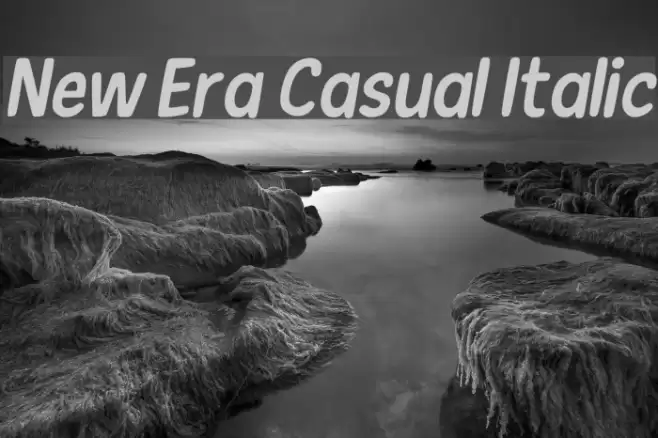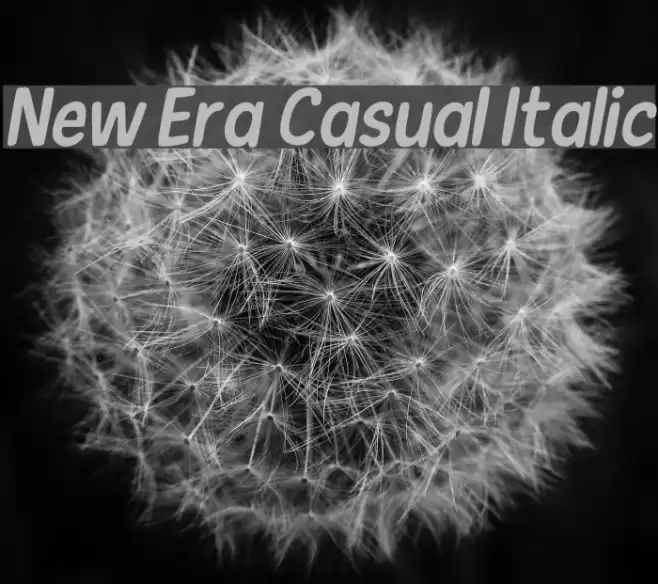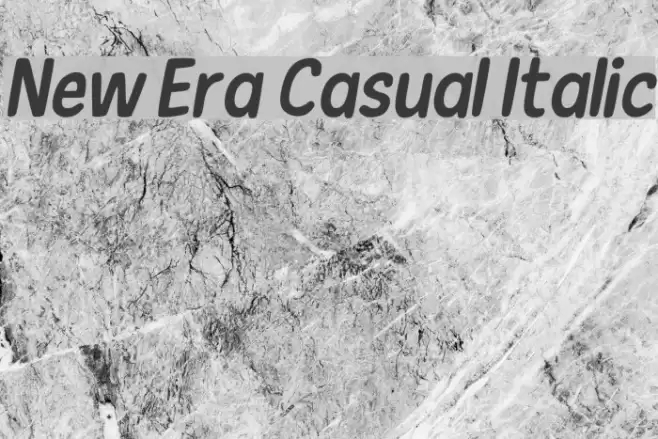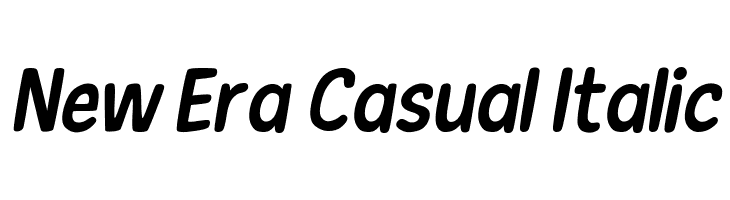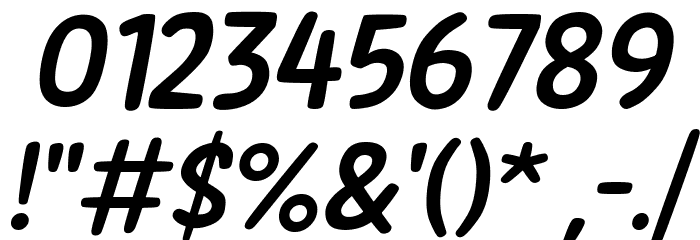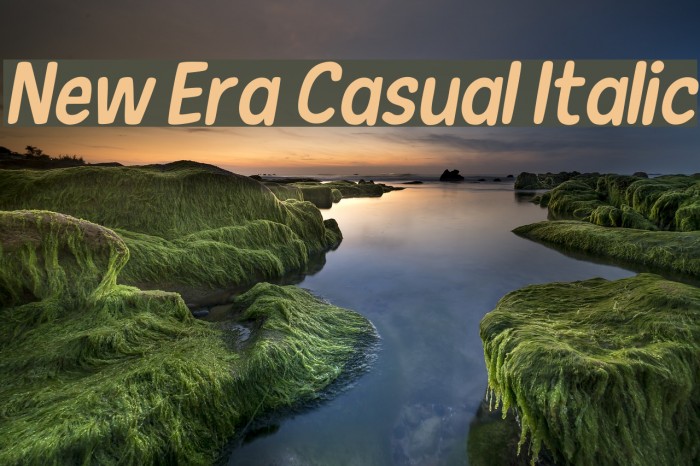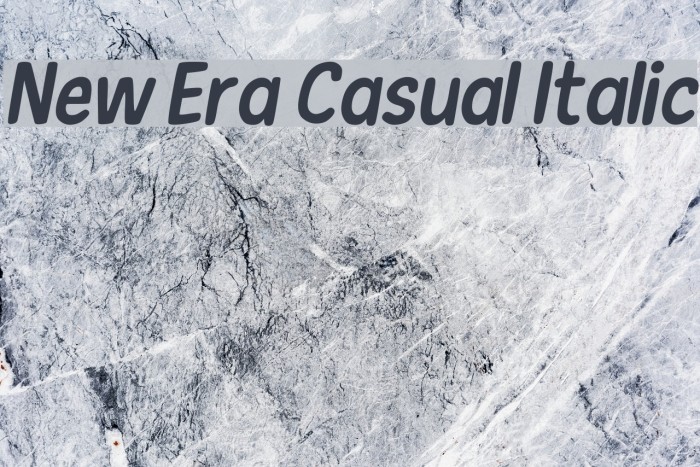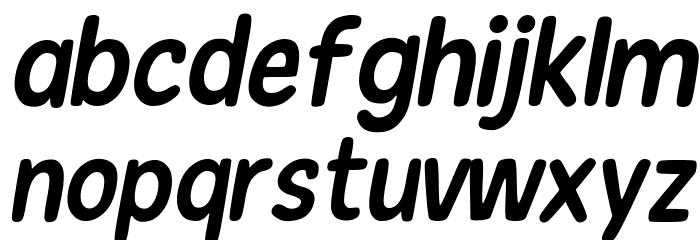
New Era Casual Italic
This font features a casual and approachable style with a slight italic slant, giving it a dynamic and informal appearance. The characters are rounded and smooth, contributing to a friendly and modern look. The uppercase and lowercase letters maintain a consistent flow, while the numerals and special characters are clearly legible and well-proportioned. The overall design is clean and versatile, suitable for a variety of applications where a relaxed yet professional tone is desired.
A casual, italic font with rounded, smooth characters.
- Proposed Projects: Ideal for branding, casual invitations, social media graphics, and informal presentations.